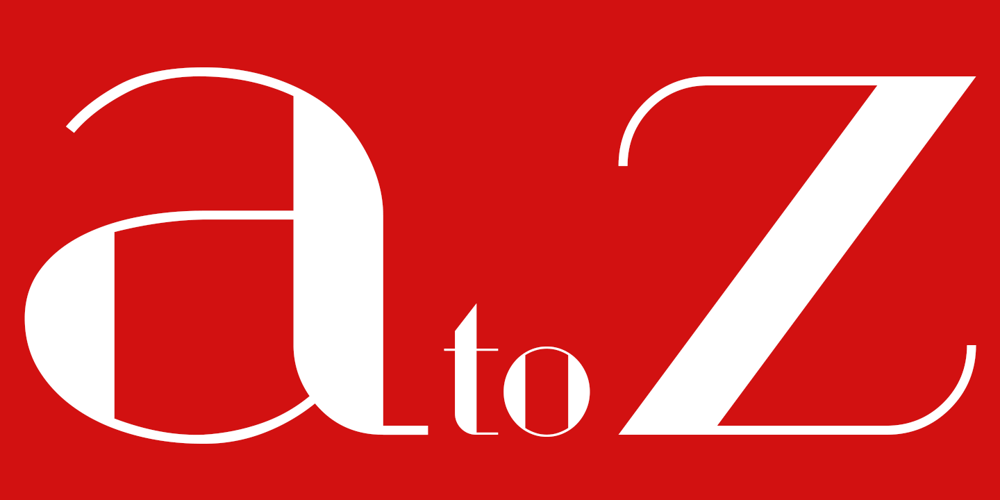
Anastas
Anastas font
Anastas Font Family was designed by Michael Brosnan and published by Michael Brosnan. Anastas contains 1 styles and family package options. Anastas is a modern high-end serif. The font is ideally suited for editorial use in books, magazines, publishing, logo, branding and creative industries as well as poster and billboards. Anastas supports all most all European Languages. It equally includes a series of Opentype features of standard ligatures, discretionary ligatures and stylistic sets. Anastas is a modern, sophisticated and stylish typeface that boarders on the edge of a classic font. It draws inspiration from modern structural grids that are responsible for our rigid movement with in our cosmopolitan landscapes. The constant redevelopment and revitalisation of London’s metropolis excited me to develop Anastas. Anastas is greek in origin coming from the word “Anastasi” which means “resurrection” or “revitalisation”.